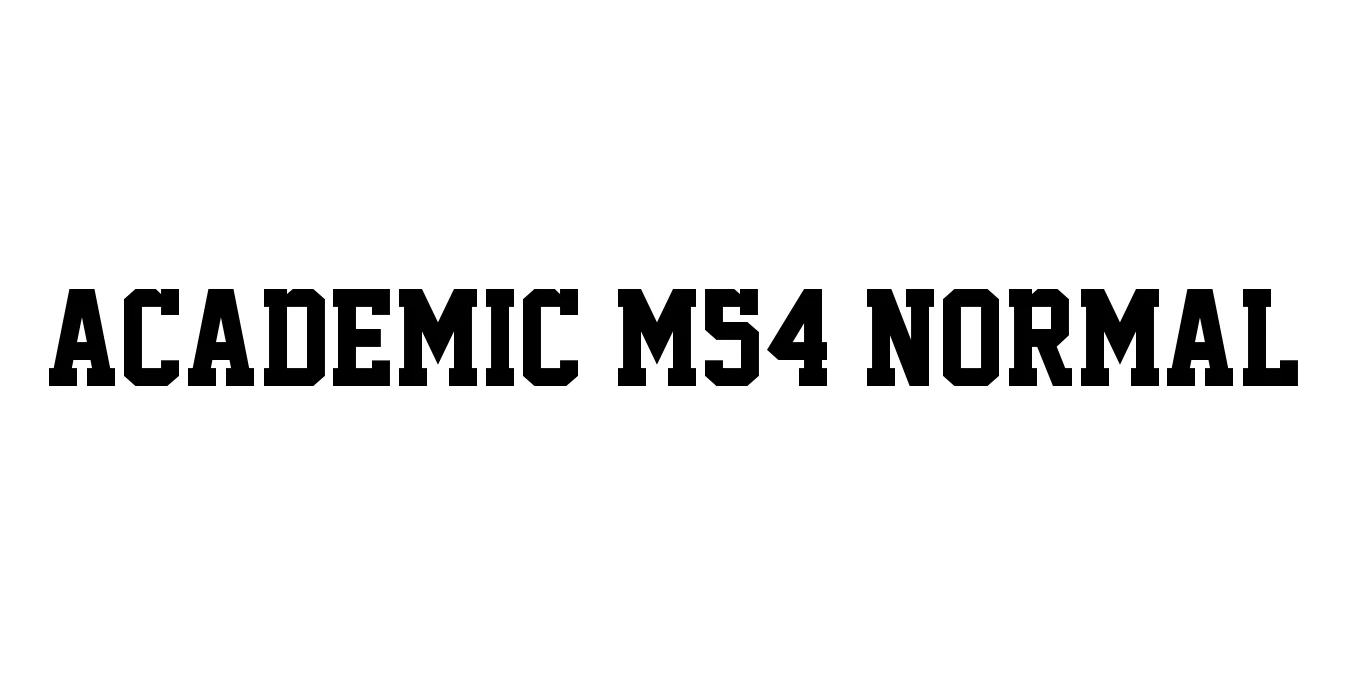
Academic M54 Normal
Designed by Mohammed Ahsan
| Category | Slab Serif / Varsity |
| Designer | Mohammed Ahsan |
Academic M54 Normal is a quintessential collegiate-style typeface designed to capture the spirit of university athletics and varsity culture. With its bold, blocky slab-serif construction, it provides a strong and authoritative presence on the page, making it a favorite for sports-related branding and collegiate graphic design projects requiring a classic American athletic aesthetic.
Originally released as part of the M54 foundry collection, this font focuses on clarity and visual impact. Its uniform stroke width and sharp, geometric corners ensure maximum legibility even from a distance, which is why it has become a staple for jersey numbering, school merchandise, and high-energy athletic event promotional materials.
Academic M54 Normal Best Uses
Used extensively for jersey numbers and athlete names due to its bold and clear structure.
Excellent for university logos, varsity jackets, and school-spirited merchandise.
Highly effective for bold headlines and announcements for sporting events.
A popular choice for streetwear and athletic-themed apparel designs.